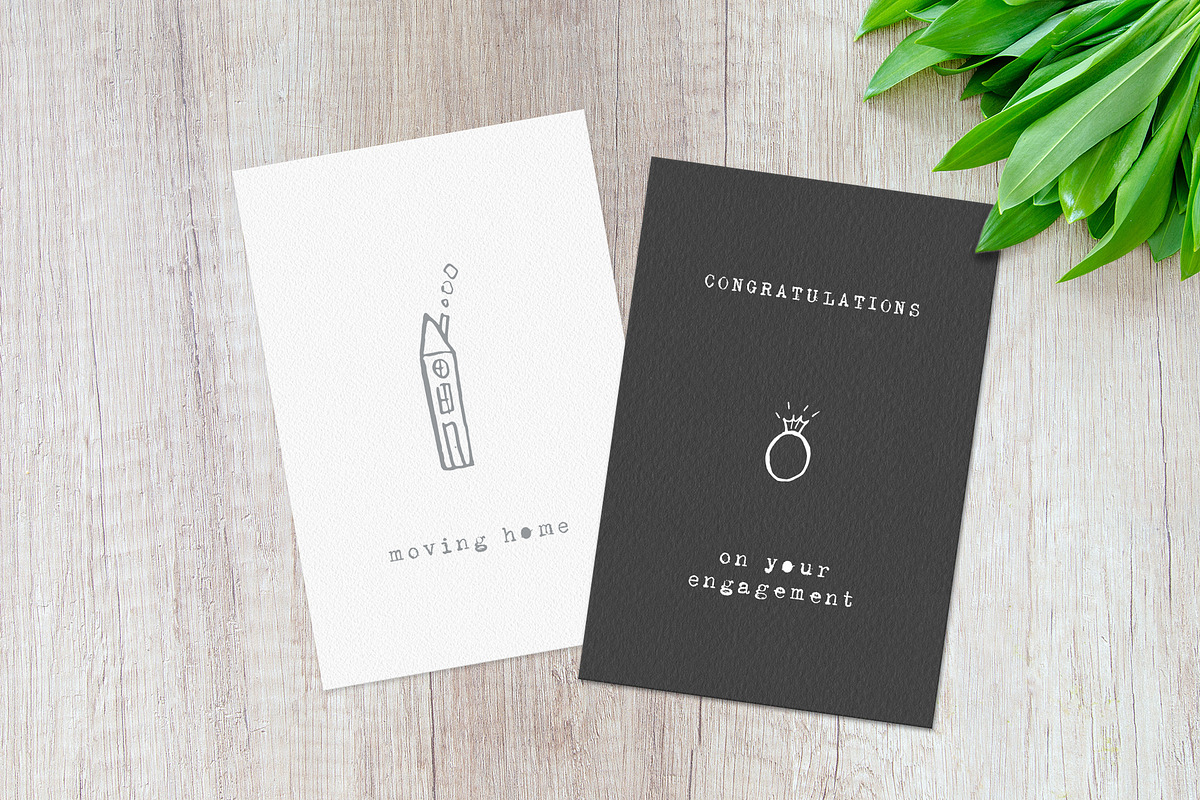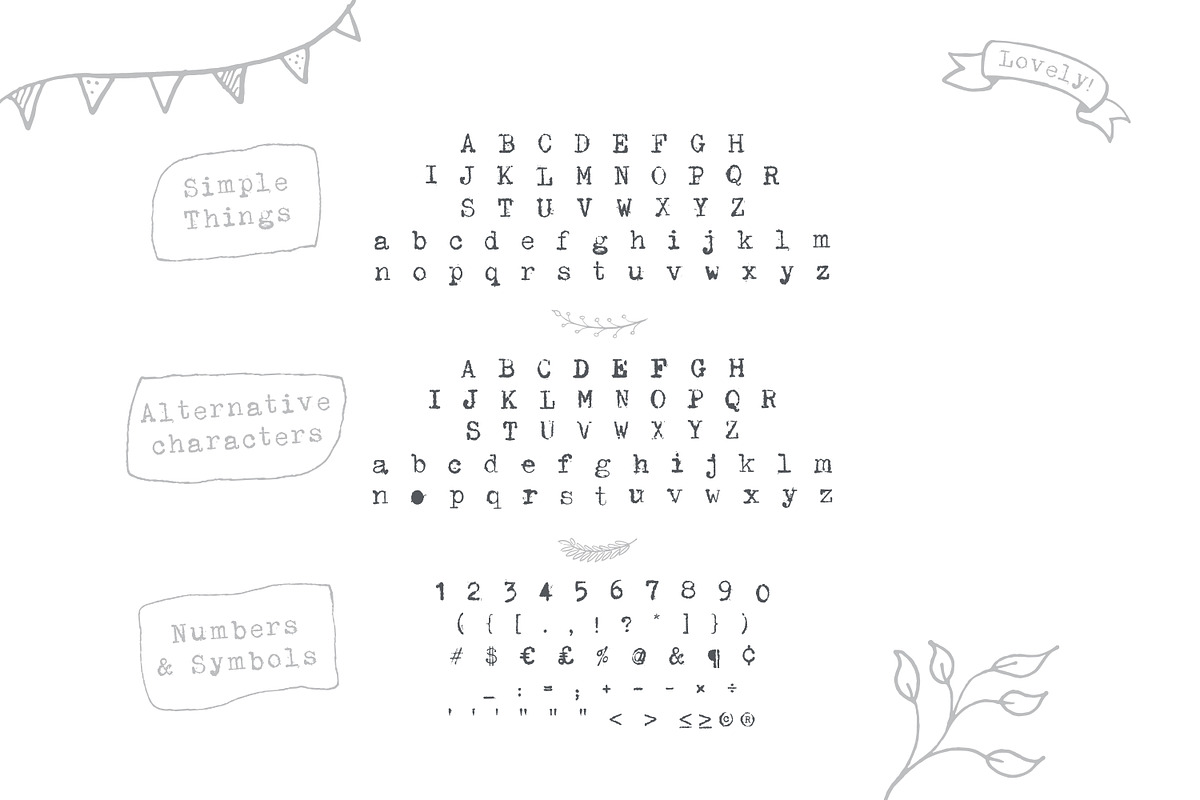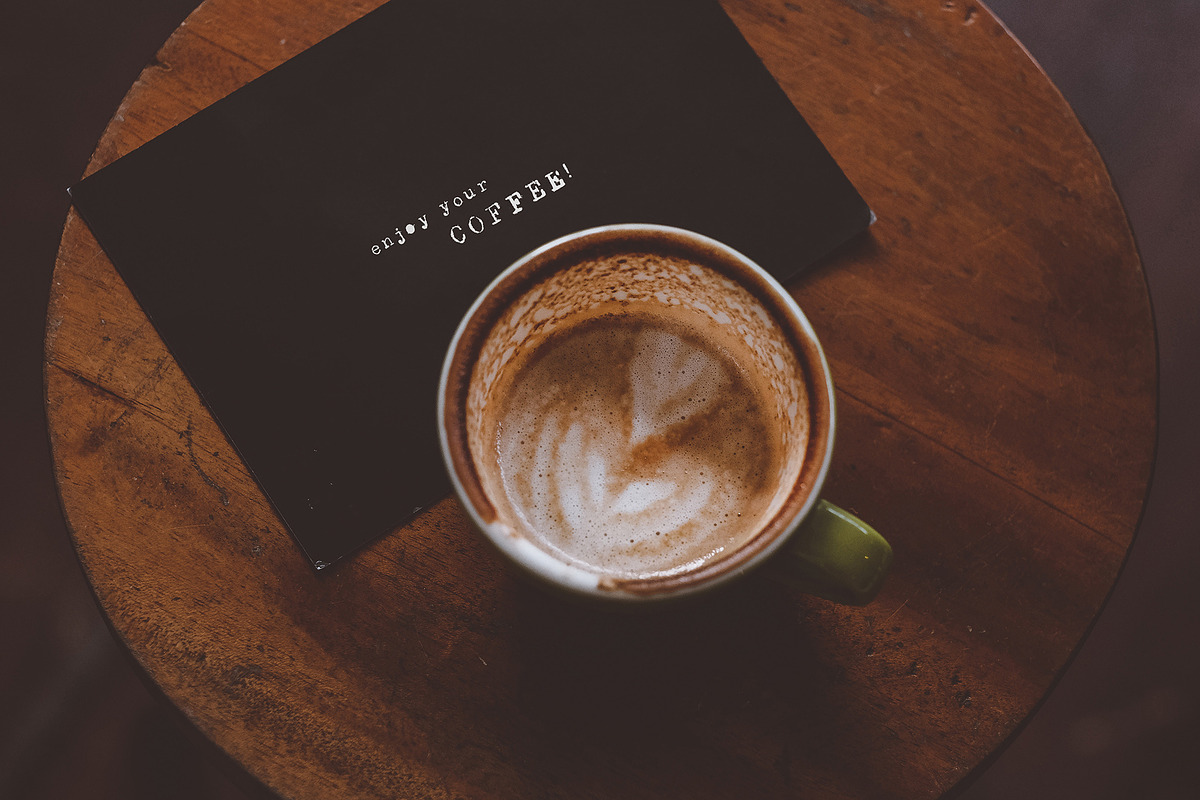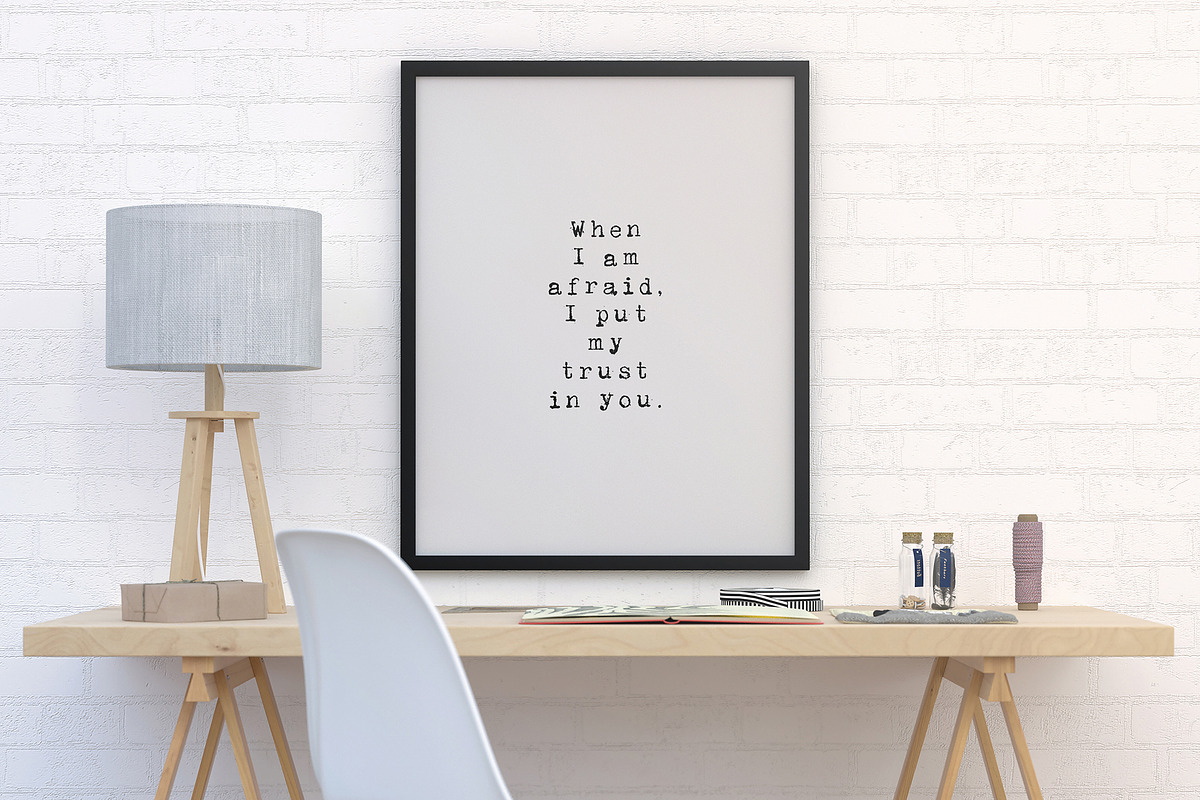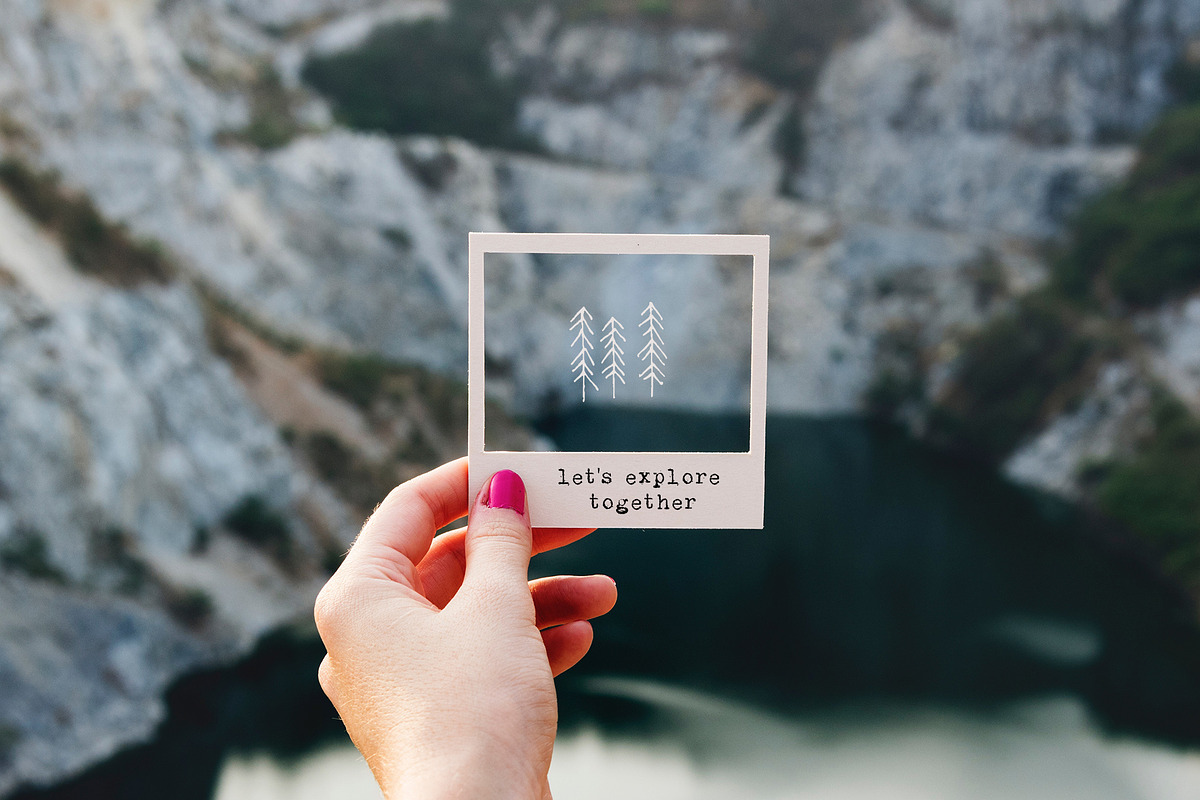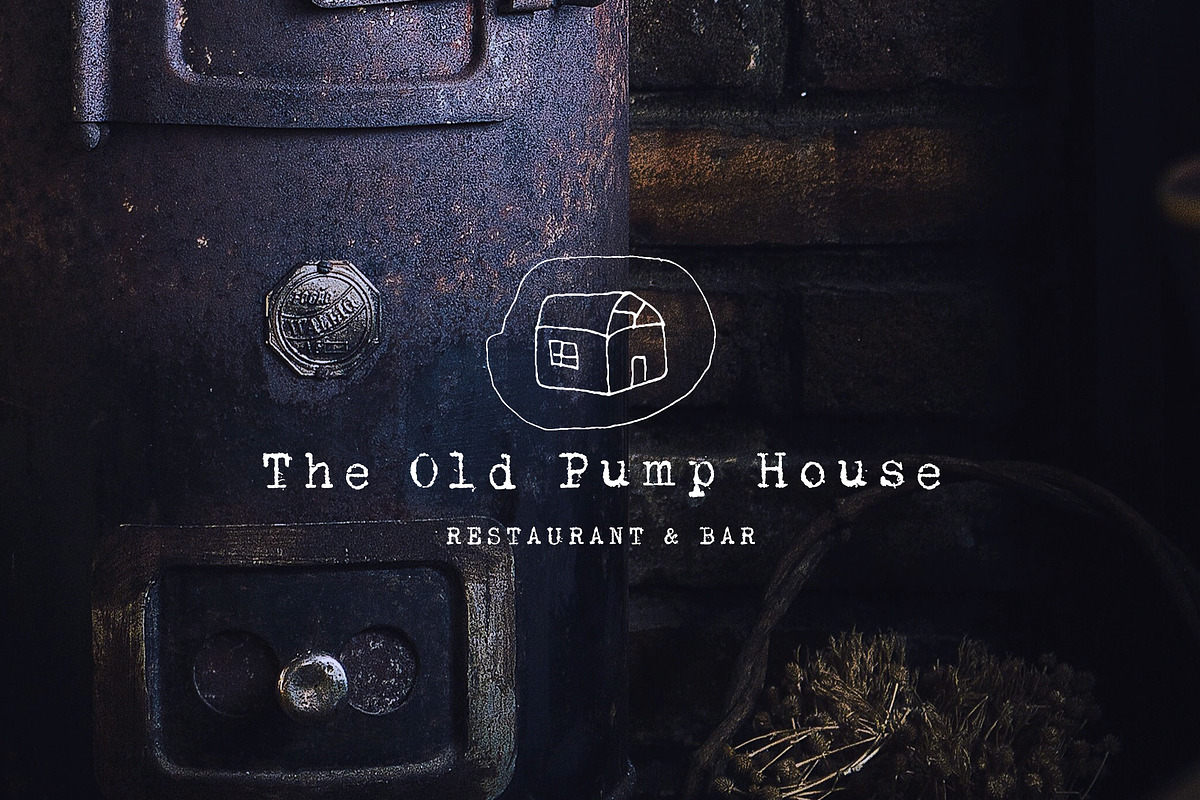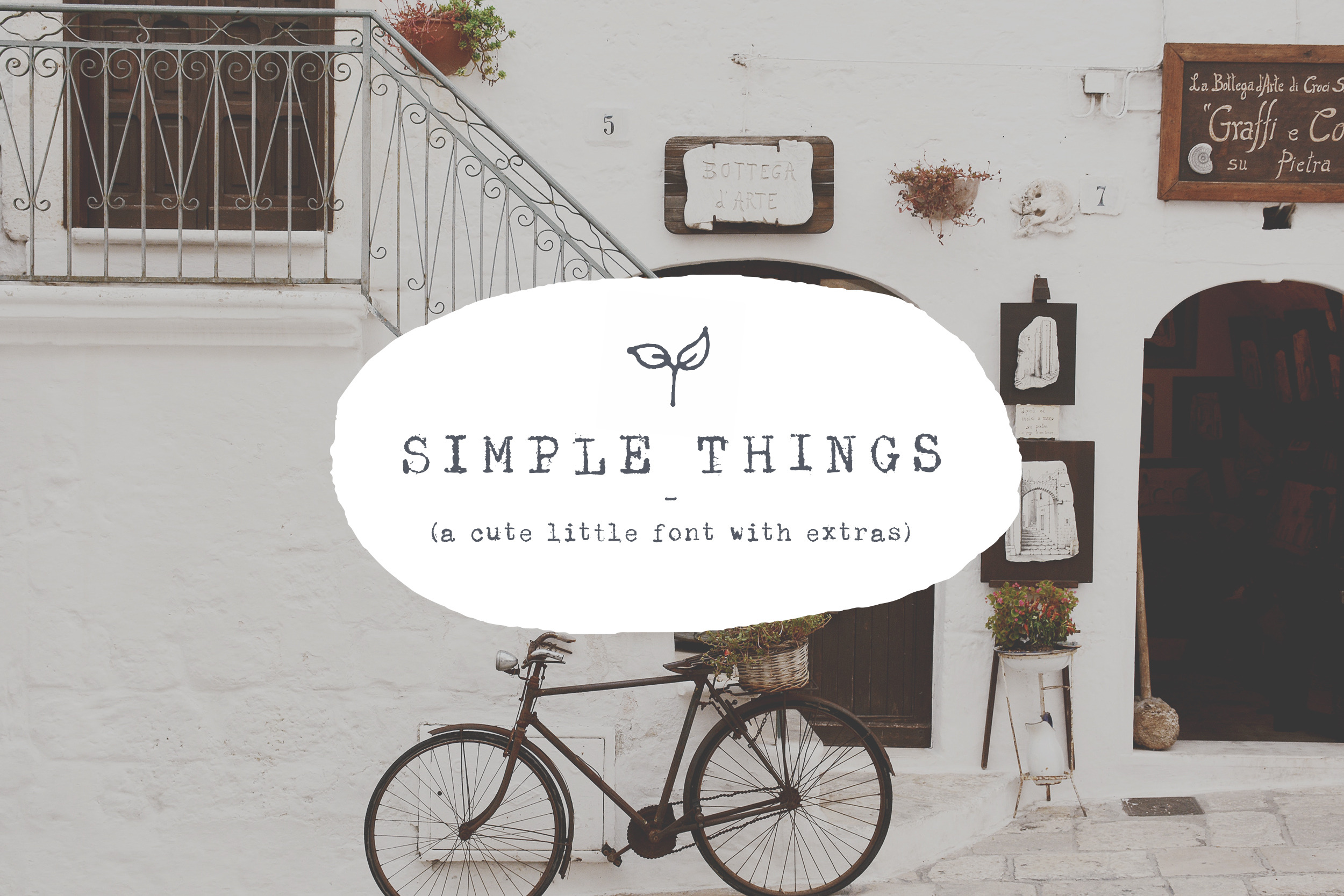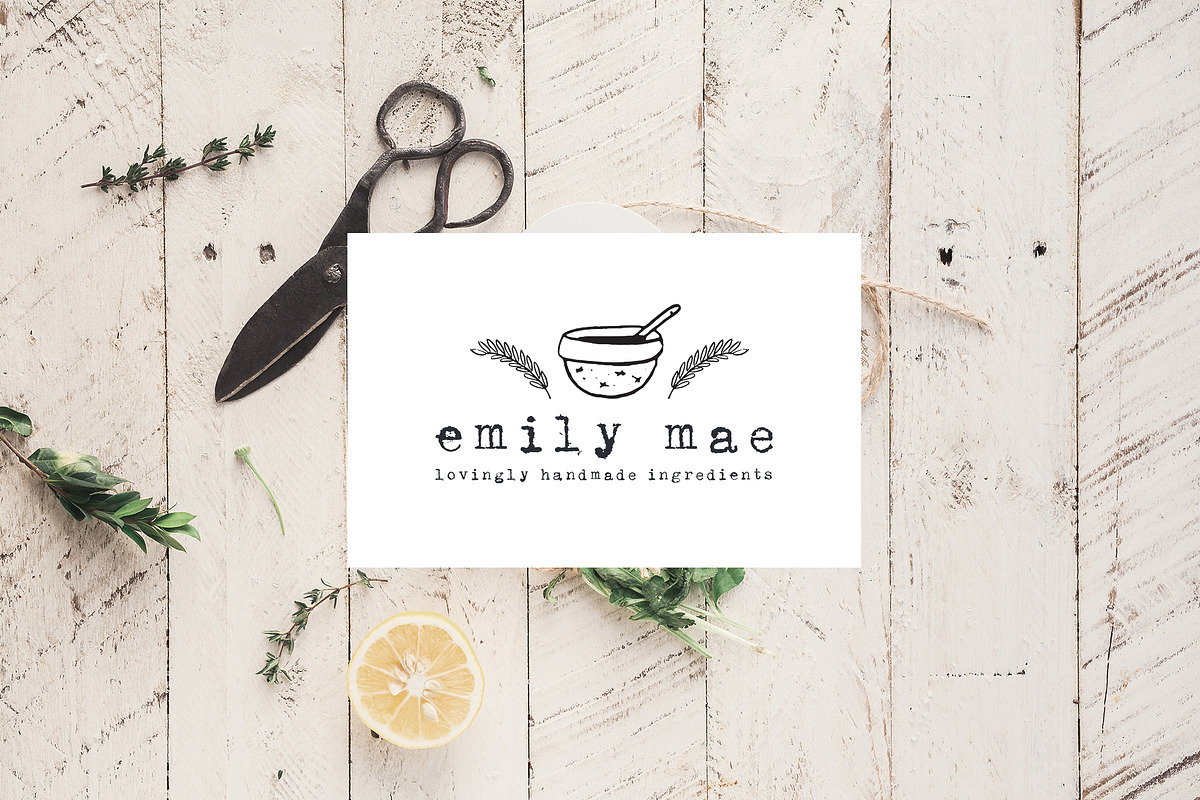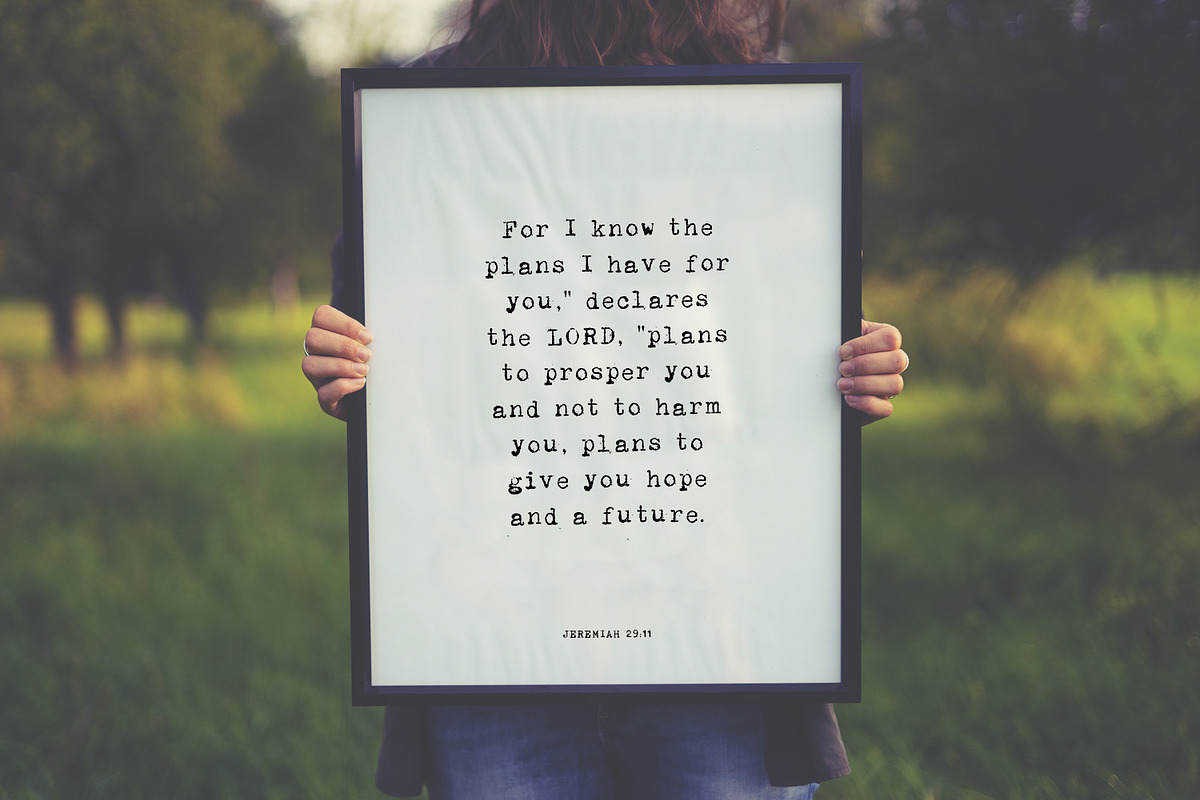
Simple Things - cute little font
I love the look that a vintage typewriter gives it's letters. The inconsistency of ink coverage, making characters fill in on themselves. Each Simple Things letter has it own personality, completely unique from it's neighbour. So when I stumbled across a old typewriter in a local thrift store I bought it straight away and typed page after page of characters, excited about the fact that I could make a really special and unique font with this piece of history at my hands. Hopefully I've captured that with this font as I've included alternative characters, that with OpenType turned on will automatically change so 2 letters together looked apart.
Perfect for that logos, weddings stationary, cards, gifts and typographical posters.
Simple Things Regular Uppercase, Lowercase and a range of numbers and symbols. Alternative characters can be accessed via the glyphs panel in your editing software or with OpenType features turned on. Includes language support.
Simple Things Illustrations A collection of 100 hand drawn illustrations that perfectly match the style of these letters to give that unique hand crafted look. (EPS, Ai, PNG, PSB)